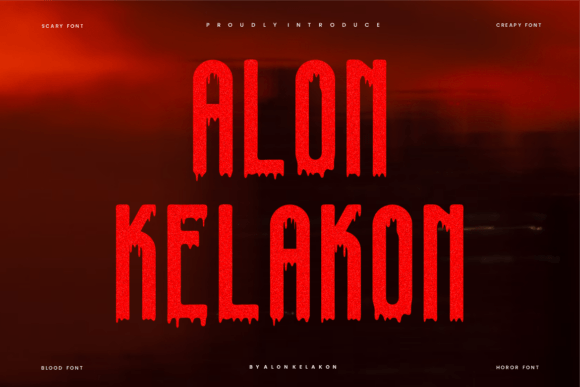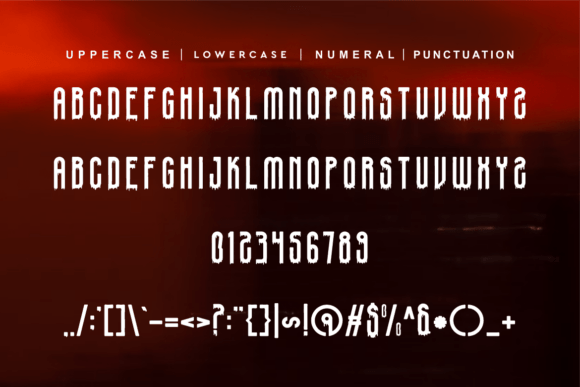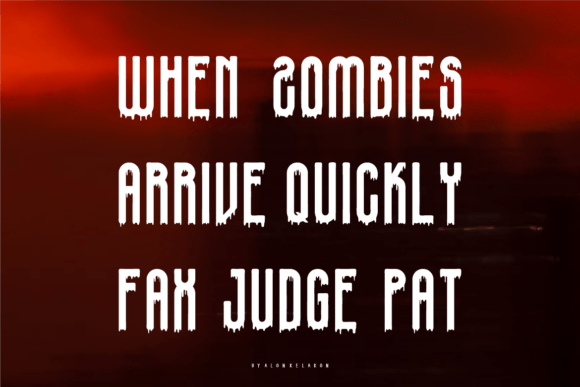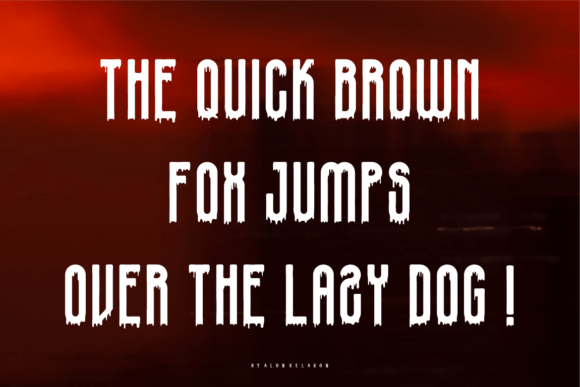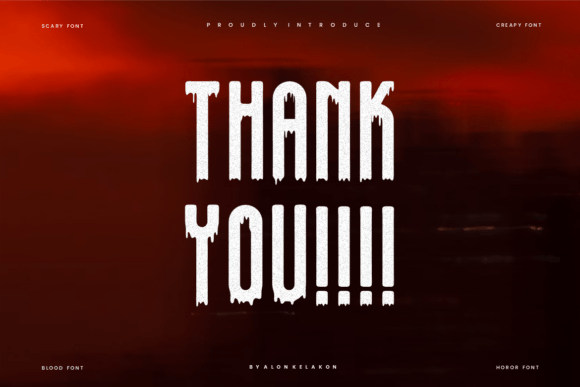
The Bloody Brilliance of Blood Gerbuto Font
I’ll never forget the time I was working on a movie poster project, and my client asked for a font that would make their title look like it was written in blood. I scoured the internet, tried countless fonts, but nothing seemed quite right. That was until I stumbled upon the Blood Gerbuto Font. It was love at first sight! 💉
So, what makes Blood Gerbuto Font so special? Let’s dive into the good stuff and, well, a few quirks. 😉
- ✨ Unique and eye-catching design that’s sure to turn heads
- ✅ Perfect for creating bold, edgy, and dramatic designs
- 🎨 Highly versatile and can be used for a wide range of projects, from movie titles to album covers
- 💻 Great for digital and print designs, with clear and crisp lines
- 🤔 May not be the best choice for body text or long paragraphs, as it’s quite bold and attention-grabbing
- ⚠️ Some users may find the font a bit limited in terms of stylistic alternates or glyphs
The Designer Inspiration Behind Blood Gerbuto Font
The story behind Blood Gerbuto Font is shrouded in mystery, but rumor has it that it was created by a designer who was inspired by the raw energy of the city. With its bold lines and edgy feel, it’s no wonder Blood Gerbuto Font has become a favorite among designers and crafters.
| Font Name | Blood Gerbuto Font |
| Author | alonkelakon |
| What makes Blood Gerbuto Font so unique? | Blood Gerbuto Font has a one-of-a-kind design that’s both bold and eye-catching. Its unique blend of edginess and sophistication makes it perfect for a wide range of designs. |
| Is Blood Gerbuto Font easy to read? | Blood Gerbuto Font is a bold font, so it may not be the best choice for body text or long paragraphs. However, it’s perfect for titles, headings, or anywhere you want to make a statement. |